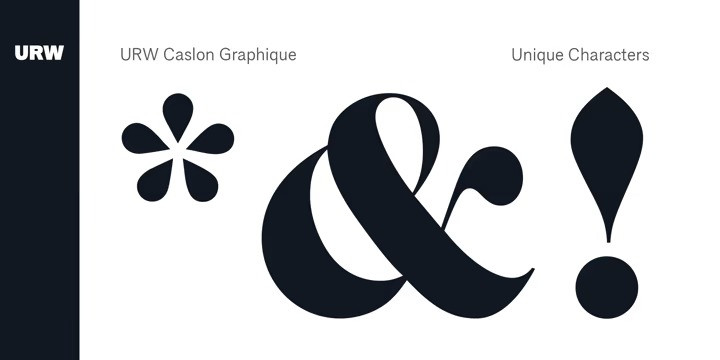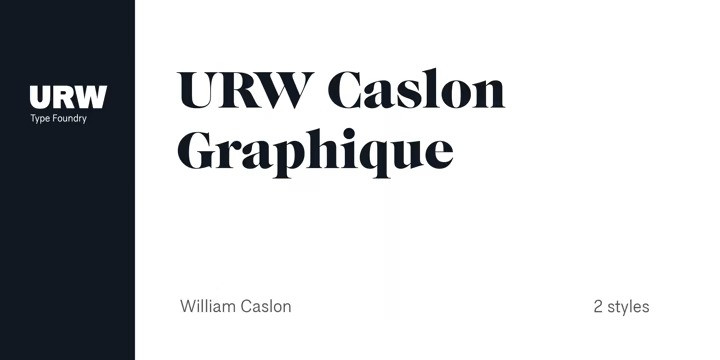
URW Caslon Graphique Serif Font Family
URW Caslon Graphique Serif Font is a pure hymn to the classic typeface. With its classic proportions, beautifully bracketed serifs, and high contrast, Cradley is a contemporary design with a Baroque spirit.